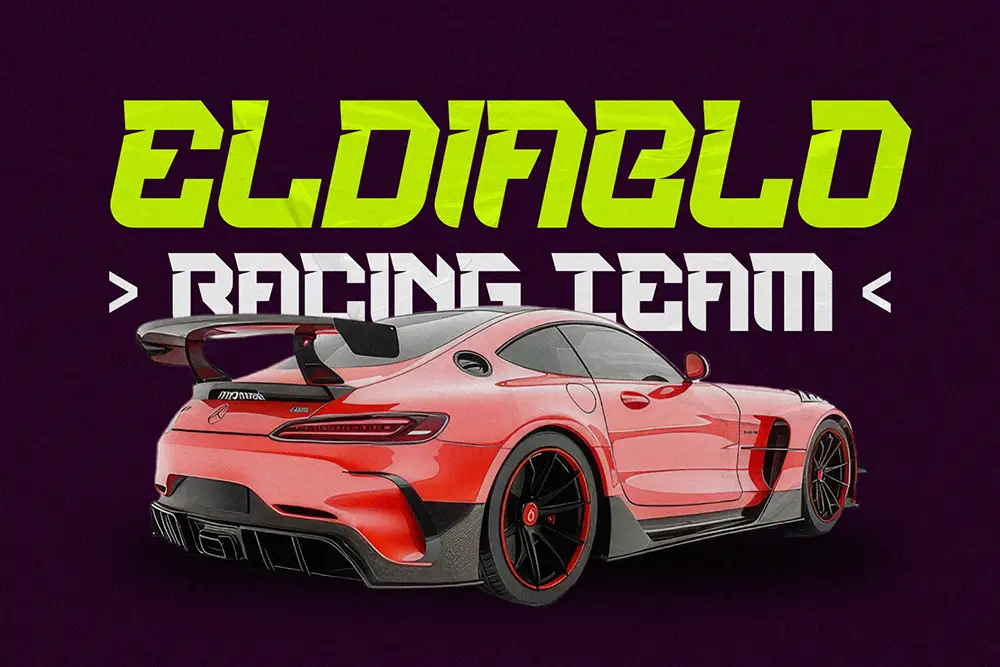
Dominiums – Display Racing Font for Bold Speed Design
Typography can express movement, power, and adrenaline like no other design element. Dominiums – Display Racing Font was built to capture the essence of speed and modern energy. With sharp angles, extended proportions, and italic variation, this display racing font brings intensity to any project. Whether you’re working on sports branding, esports visuals, or high-energy posters, Dominiums ensures your message is delivered with confidence and motion.
This display racing font is designed for designers who want impact. Its bold strokes and fast-inspired forms guarantee your text won’t just be seen—it will be felt.
Display Racing Font with Bold Style
Dominiums stands apart from generic typefaces. As a display racing font, it’s crafted to simulate velocity and competition. Its slanted italic option amplifies the sense of motion, making it perfect for motorsport designs, racing campaigns, and dynamic advertising.
From automotive branding to modern gaming overlays, Dominiums delivers a strong visual punch. Every stroke is infused with intensity, ensuring your projects radiate energy.
Key Features of Dominiums – Display Racing Font
Professional designers need more than style—they need flexibility and performance. Dominiums includes everything required to fuel creativity:
• Uppercase & Lowercase: Complete alphabet set for versatile applications.
• Regular and Italic Styles: Italic version enhances speed-driven layouts.
• Multilingual Support: Extended Latin characters for global audiences.
• Racing-Inspired Edge: Sharp, bold strokes perfect for sports and esports.
• High Visibility: Maintains clarity in large titles and posters.
Why Designers Love Dominiums
Creative professionals love Dominiums because it’s not just another typeface—it’s a display racing font that blends strength, versatility, and modern motion.
Here’s why it’s a favorite:
• Instant Energy: Every letterform radiates speed and adrenaline.
• Versatile Usage: Works for posters, logos, digital banners, and packaging.
• Design Flexibility: Comes with regular and italic styles.
• Pairing Friendly: Looks stunning alongside bold sports fonts like Quinoss Modern Sport Font.
• Professional Quality: Ideal for esports tournaments, championship logos, and promotional campaigns.
Dominiums for Logos and Sports Branding
Logos represent power and identity. As a display racing font, Dominiums is built for brand marks that demand speed and strength. Perfect for automotive logos, motorsport events, or esports branding, it brings modern authority to any identity.
When paired with Quinoss, the balance between futuristic racing energy and strong sport display design creates a dynamic, unforgettable brand aesthetic.
Dominiums for Posters and Advertising
Posters thrive on impact, and Dominiums delivers. This display racing font is perfect for large-scale headlines, promotional campaigns, and competition banners. Its bold weight and italic options guarantee your text grabs attention whether on billboards, digital flyers, or racing event signage.
Dominiums ensures your advertising not only gets noticed but leaves a lasting impression.
Using Dominiums in Esports and Digital Media
The esports industry demands visuals that feel powerful and futuristic. Dominiums fits perfectly into that world. This display racing font is ideal for gaming overlays, Twitch graphics, YouTube thumbnails, and esports tournament branding.
Its italic style gives your designs a sense of speed, while multilingual support ensures your work resonates across global audiences. Designers looking for a font that energizes digital spaces will find Dominiums indispensable.
• Character Set: Uppercase, Lowercase, Numbers, Punctuation
• Category: Display Racing Font
• Best Uses: Logos, Posters, Sports Branding, Esports, Digital Media, Advertising
Font Pairing Suggestions
Dominiums shines when paired with the right fonts. For bold, professional results, try these combinations:
• Quinoss Modern Sport Font – balances Dominiums’ racing energy with modern sport typography.
• Combine italic Dominiums with a bold block font for contrast.
• Use it alongside brush-style fonts to soften the rigid racing edge.
Pairing Dominiums strategically allows designers to achieve striking visuals across both print and digital projects.
Dominiums – Display Racing Font is more than a typeface. It’s a design weapon built for energy-driven projects. From bold sports branding to esports overlays, it brings adrenaline into every letterform. With OTF, TTF, and WOFF formats included, plus italic variation and multilingual support, it’s ready for global impact.